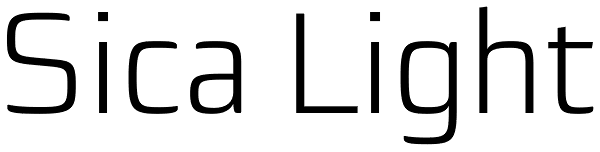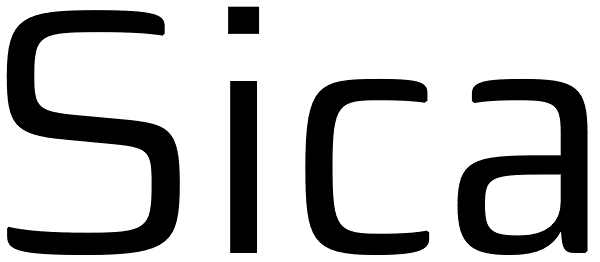
Sica
The Sica Family was designed in order to address issues related to technology, while maintaining humanistic forms. Thus, a font with square shapes emerged, but with smooth curves and slightly rounded terminals making it friendly. The family has...